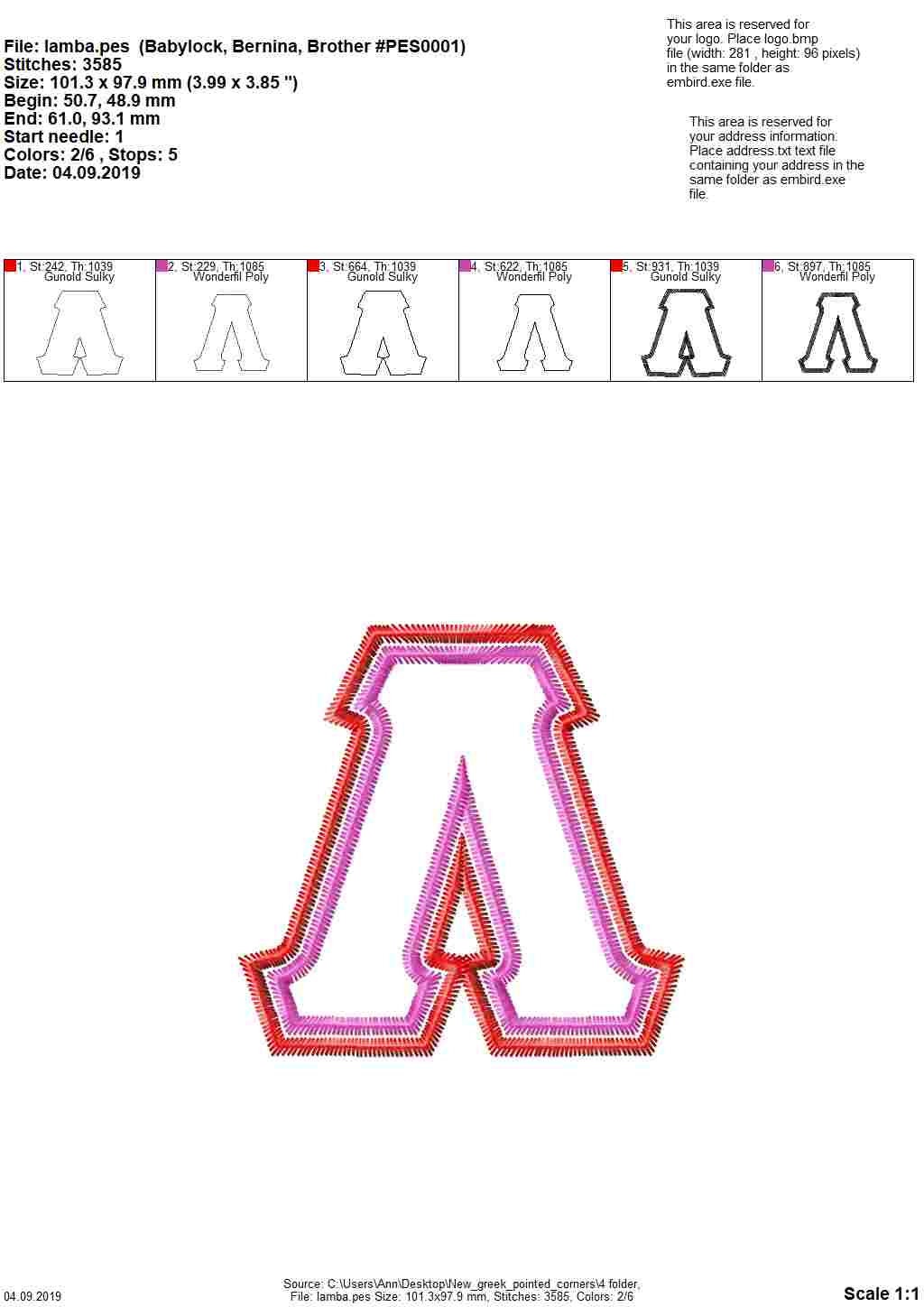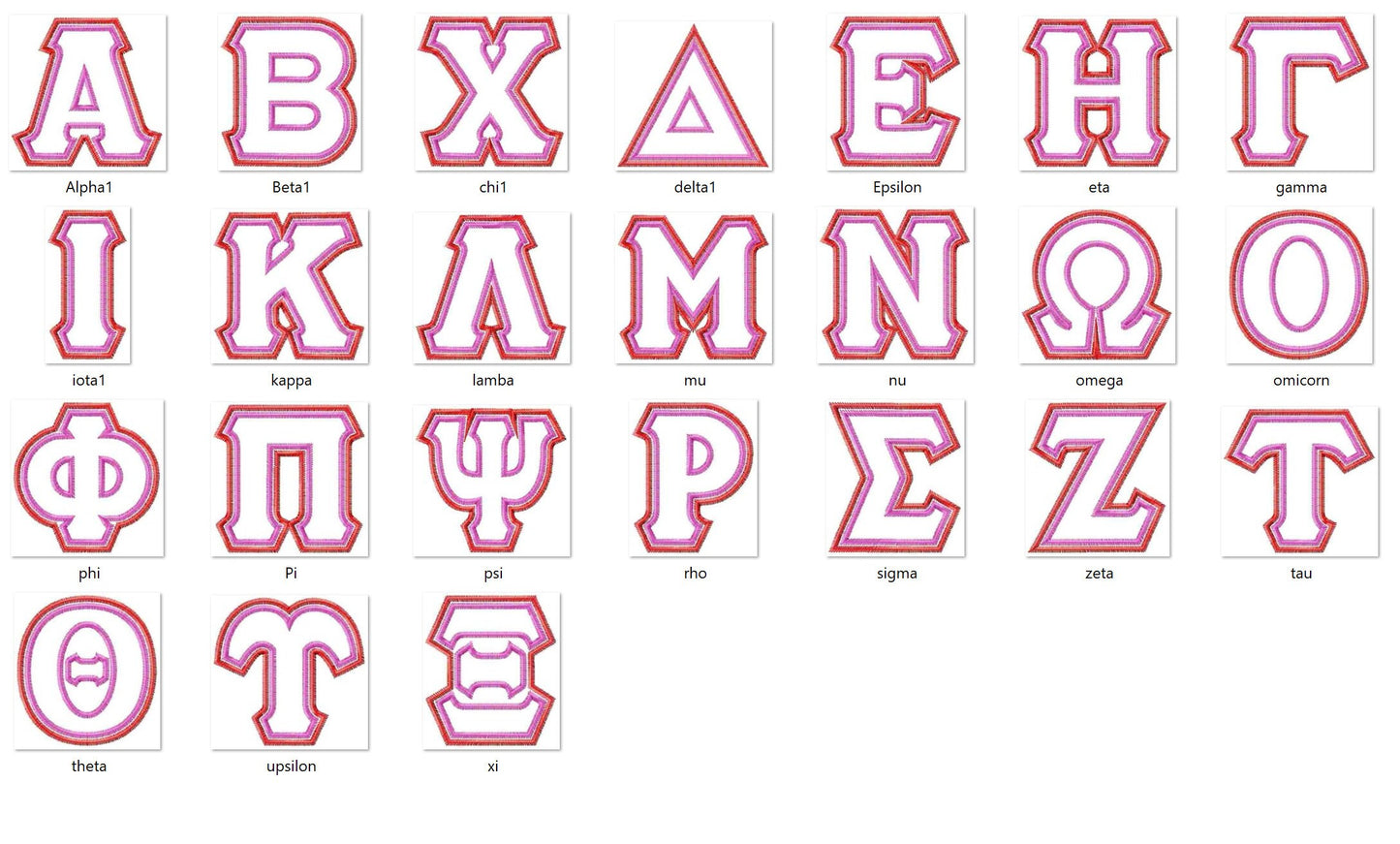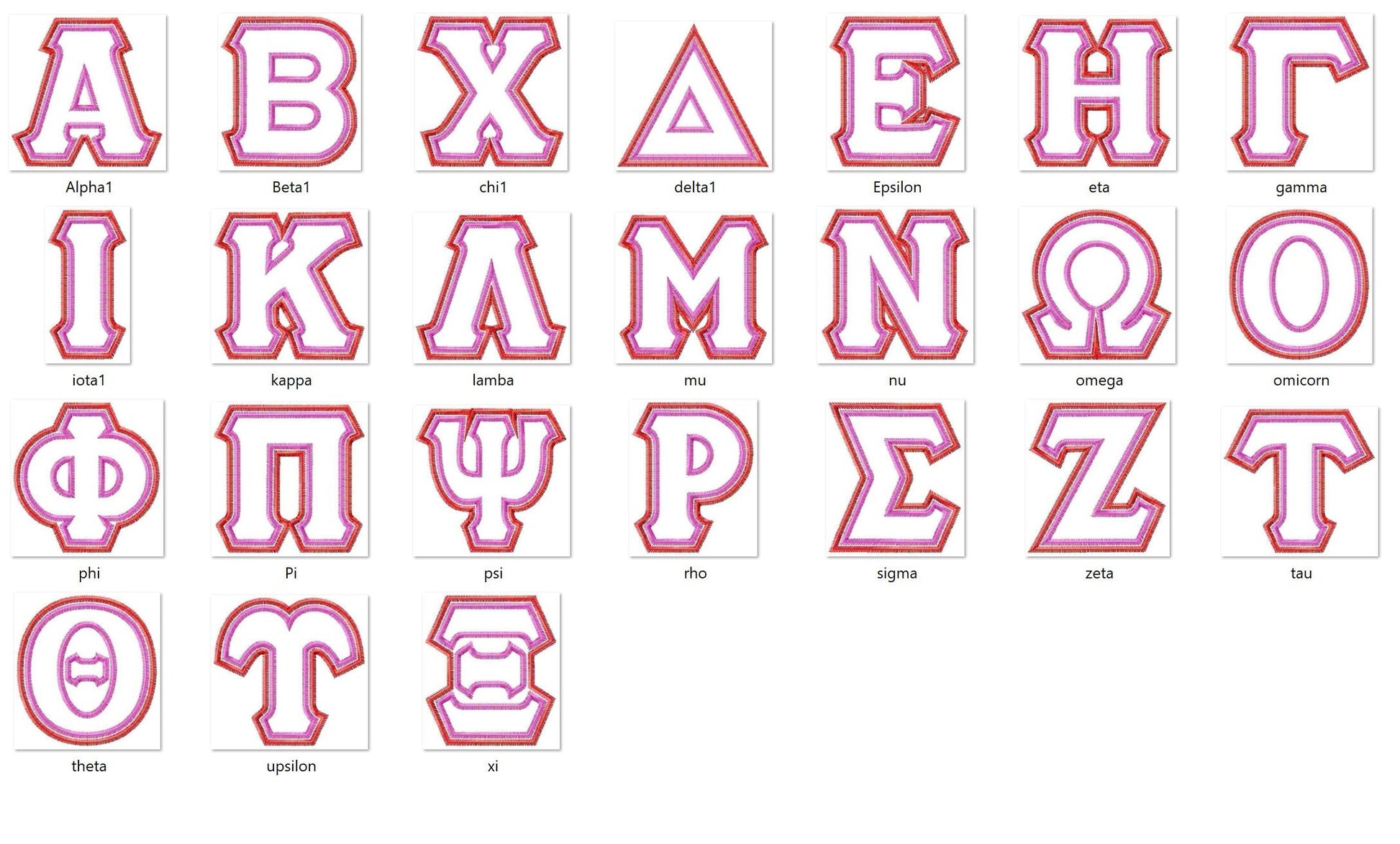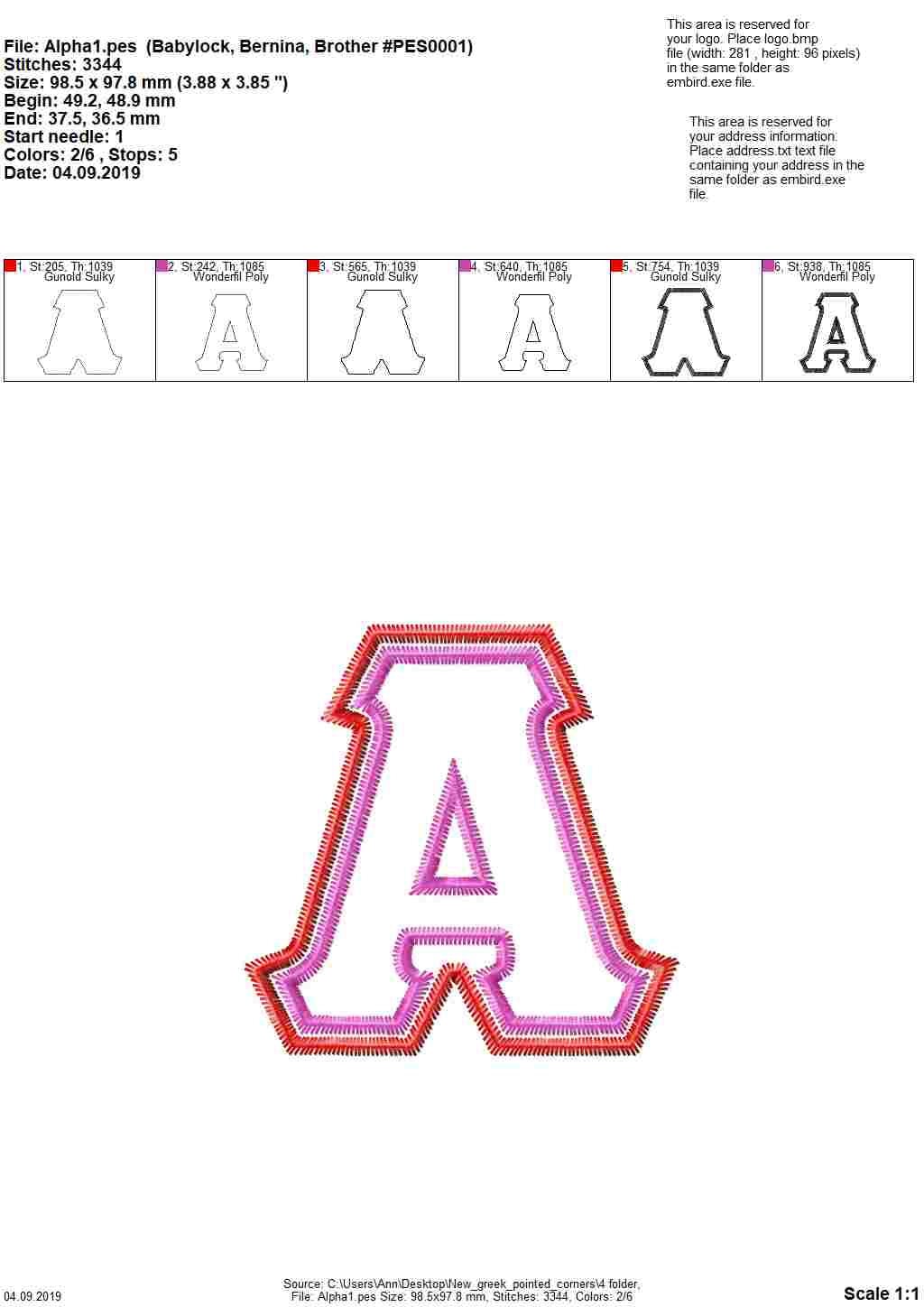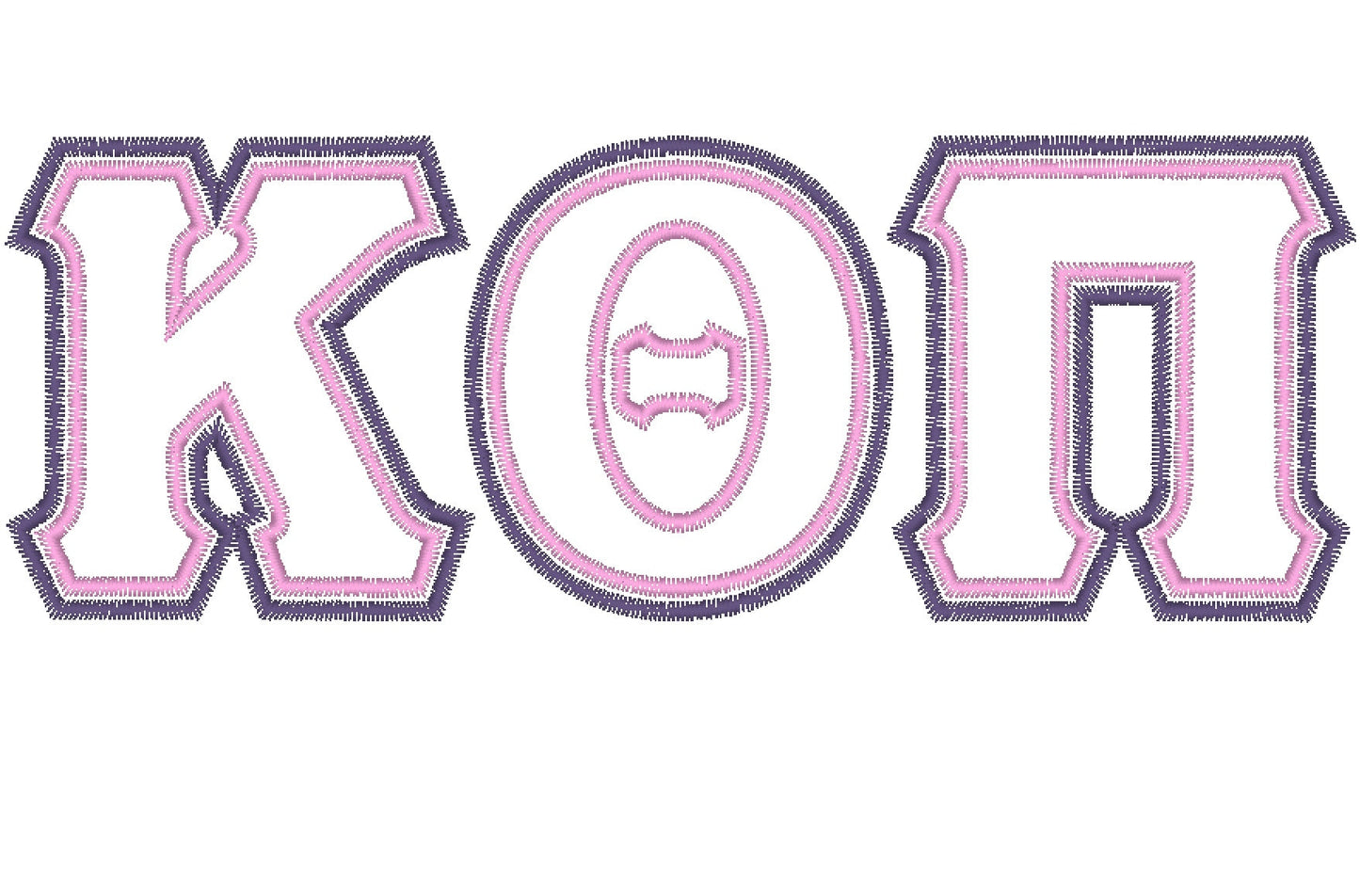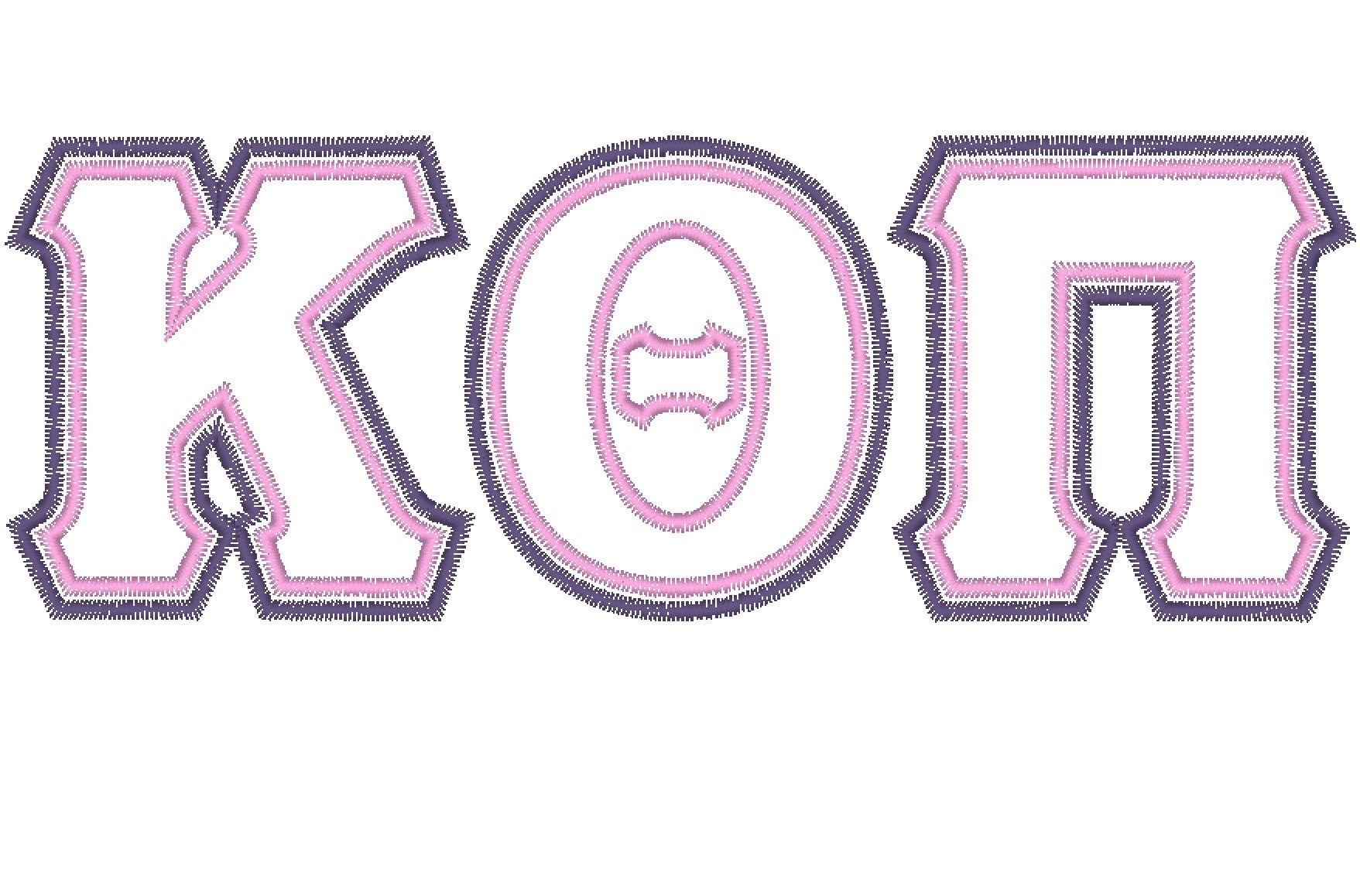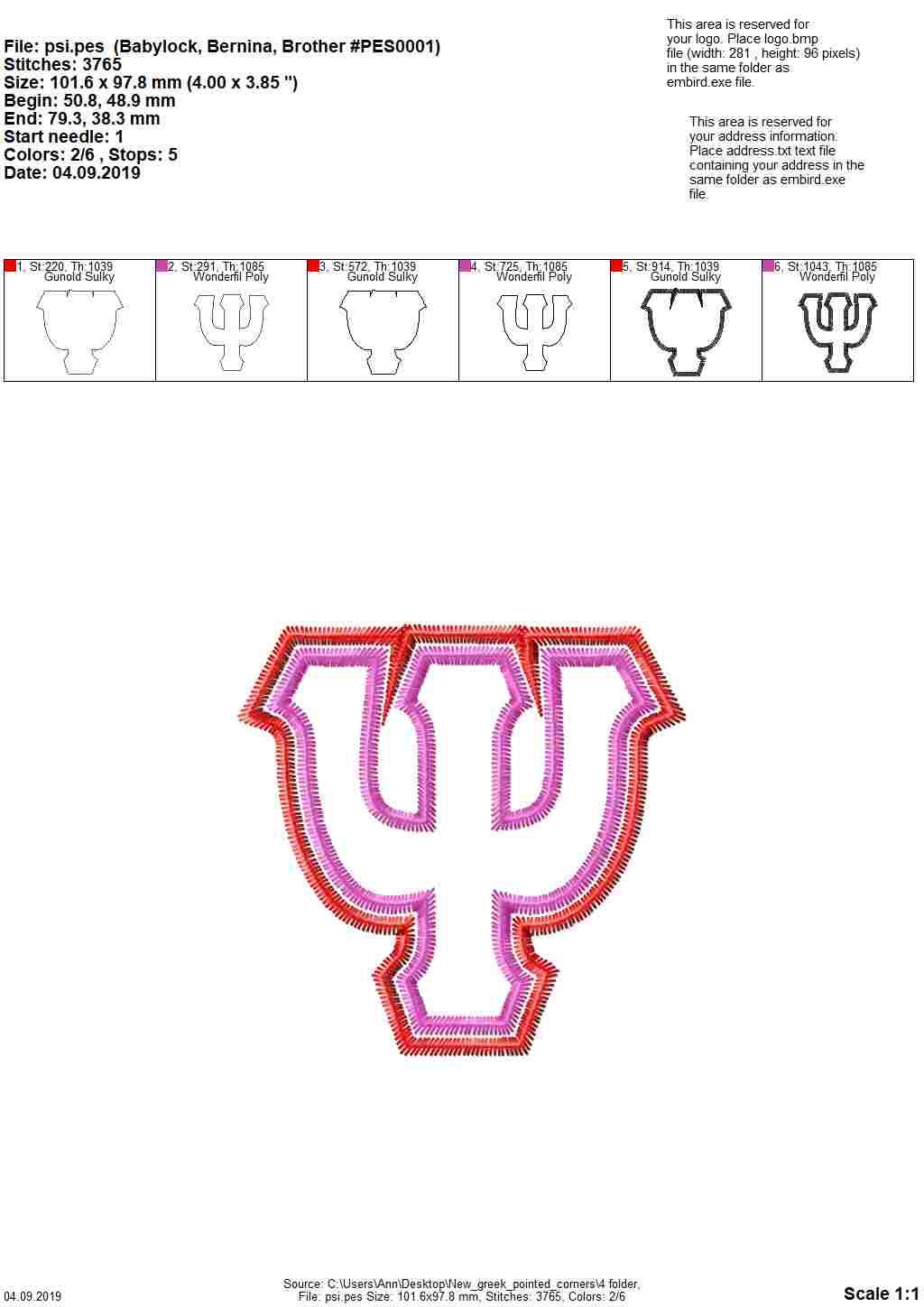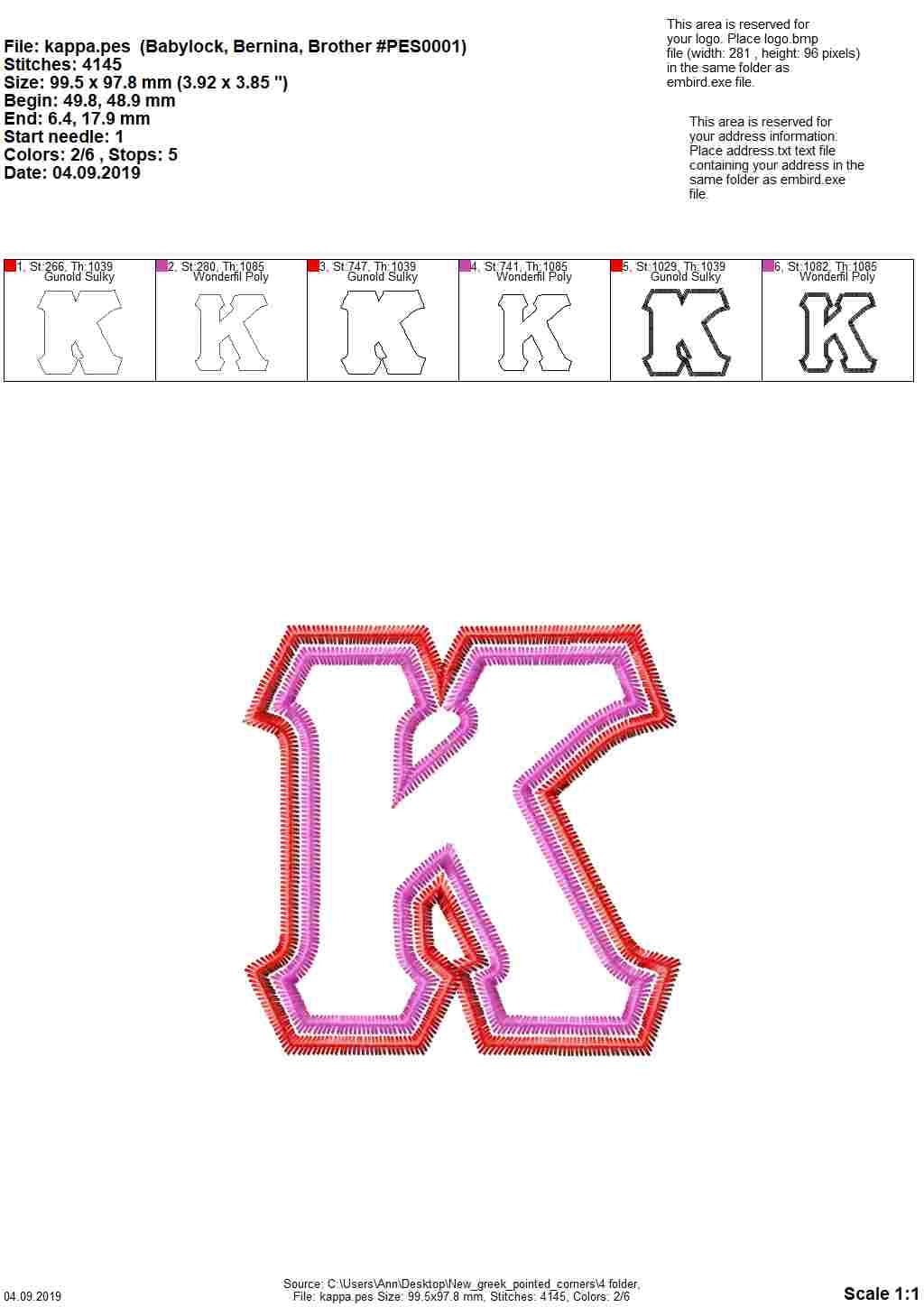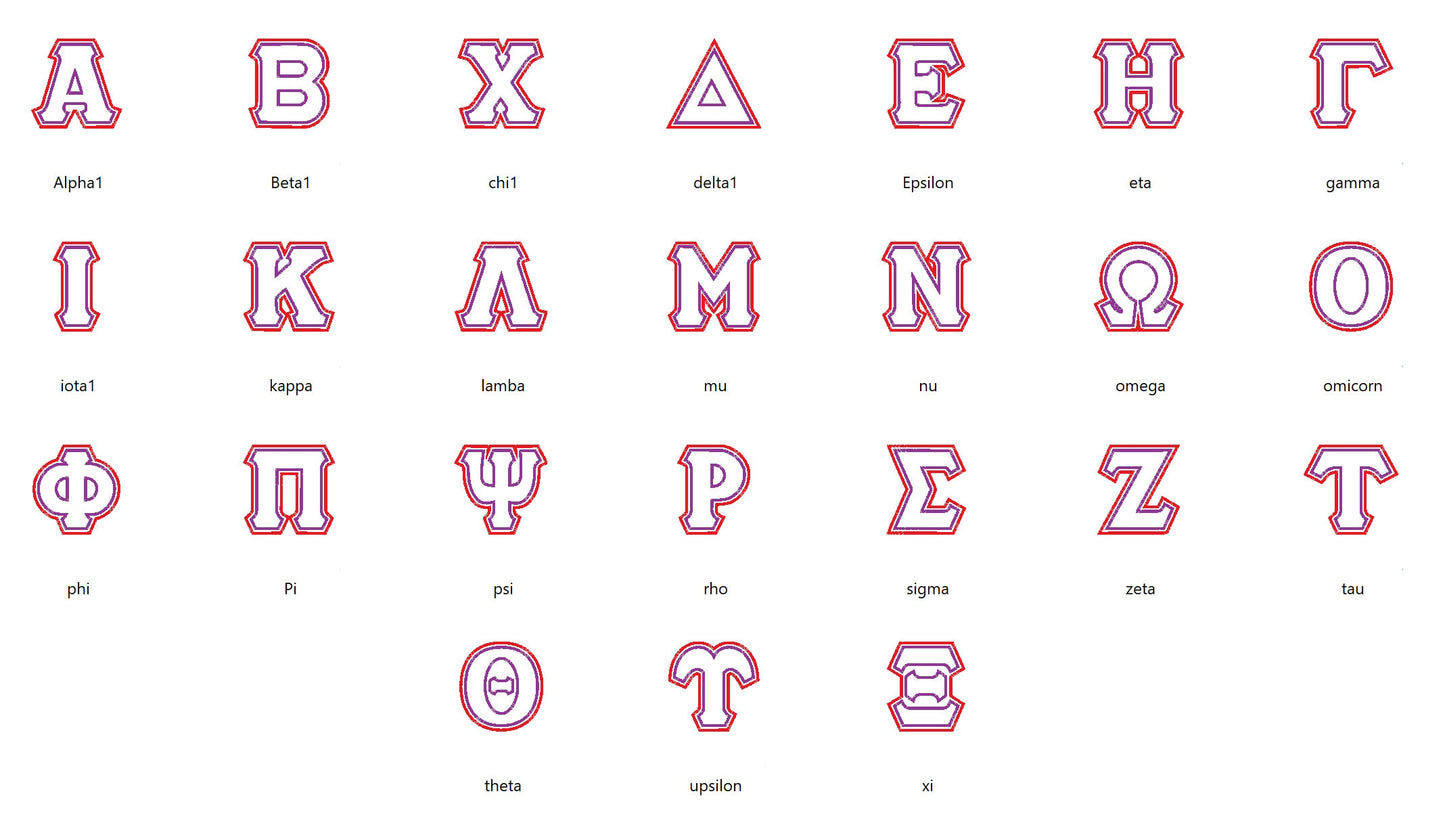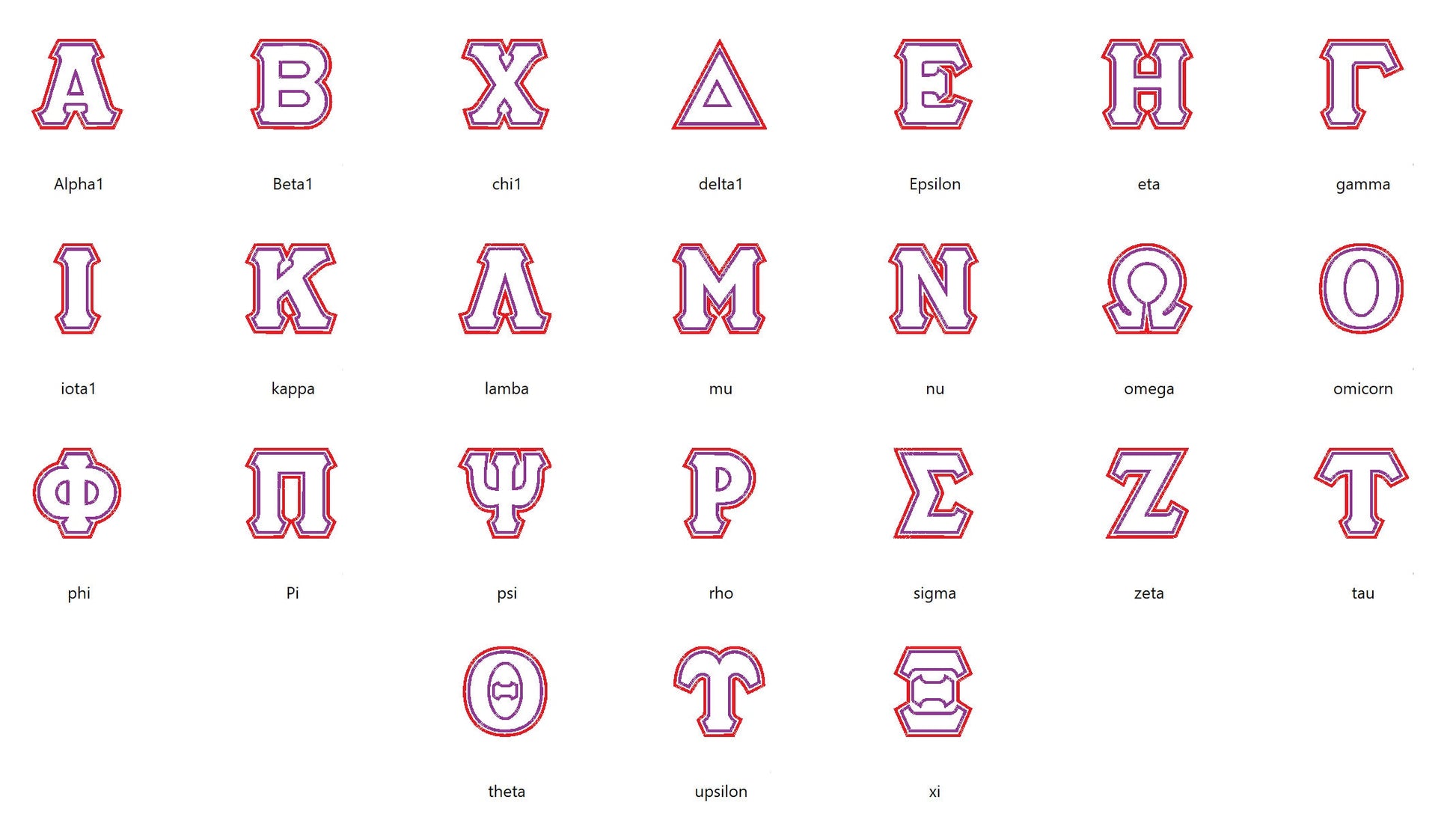
Or click to open the linkThe whole Greek alphabet as a two-step double applique with a zig zag finish, for sorority and fraternity letters. Great on jerseys, sweatshirts and bags.
All 24 Greek letters with pointed corners, two fabric layers and a zig zag applique edge. Letters come in seven sizes: 3, 3.5, 4, 4.5, 5, 5.5 and 6 inches.